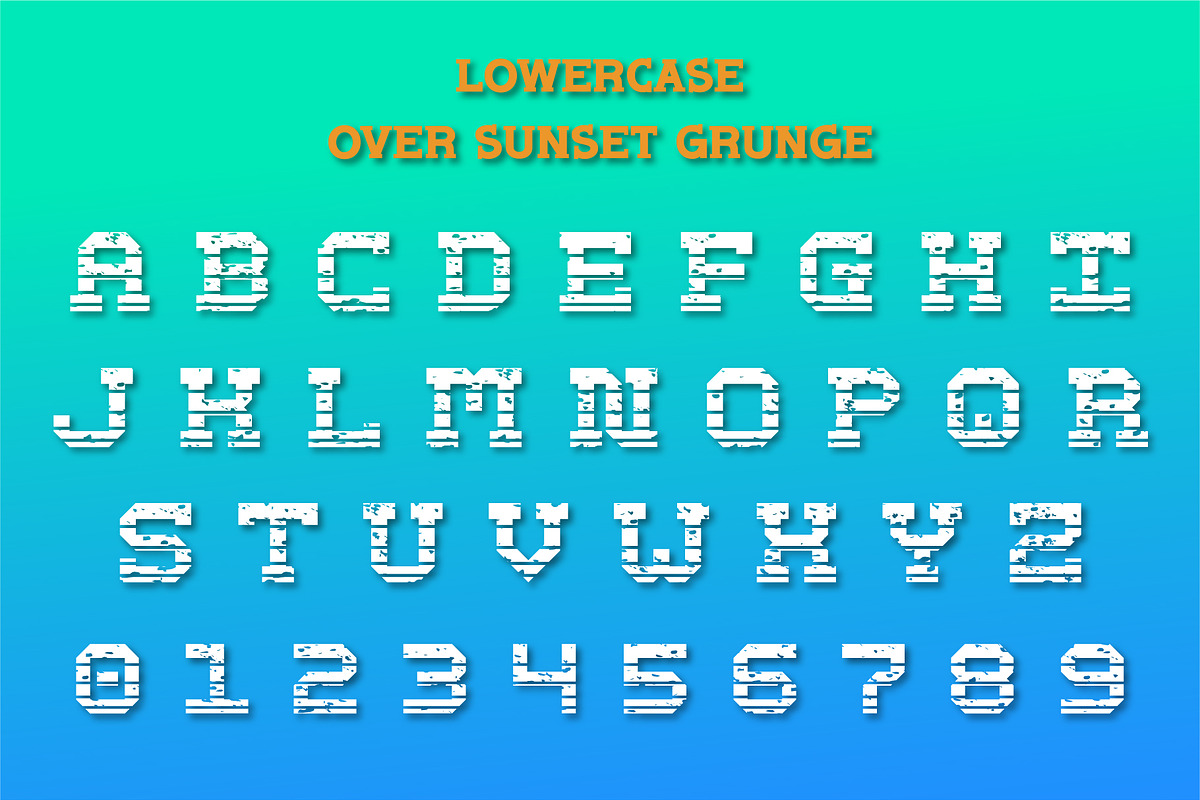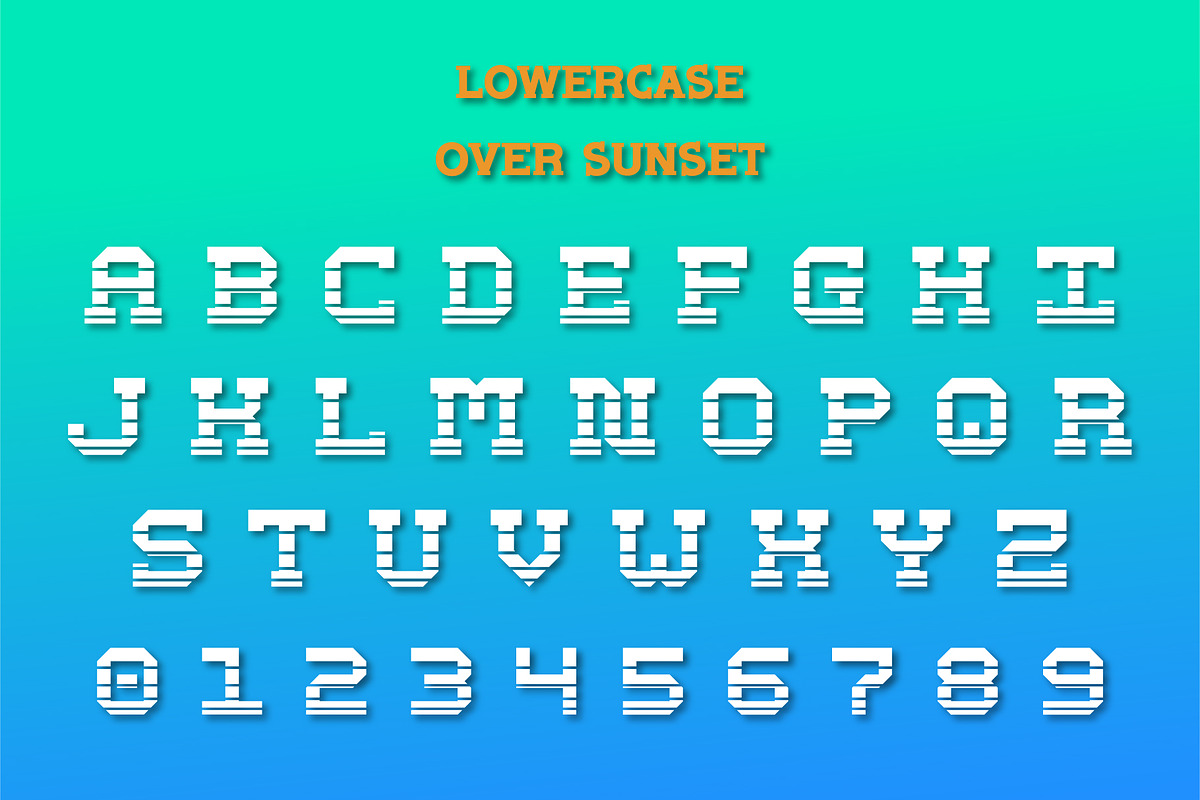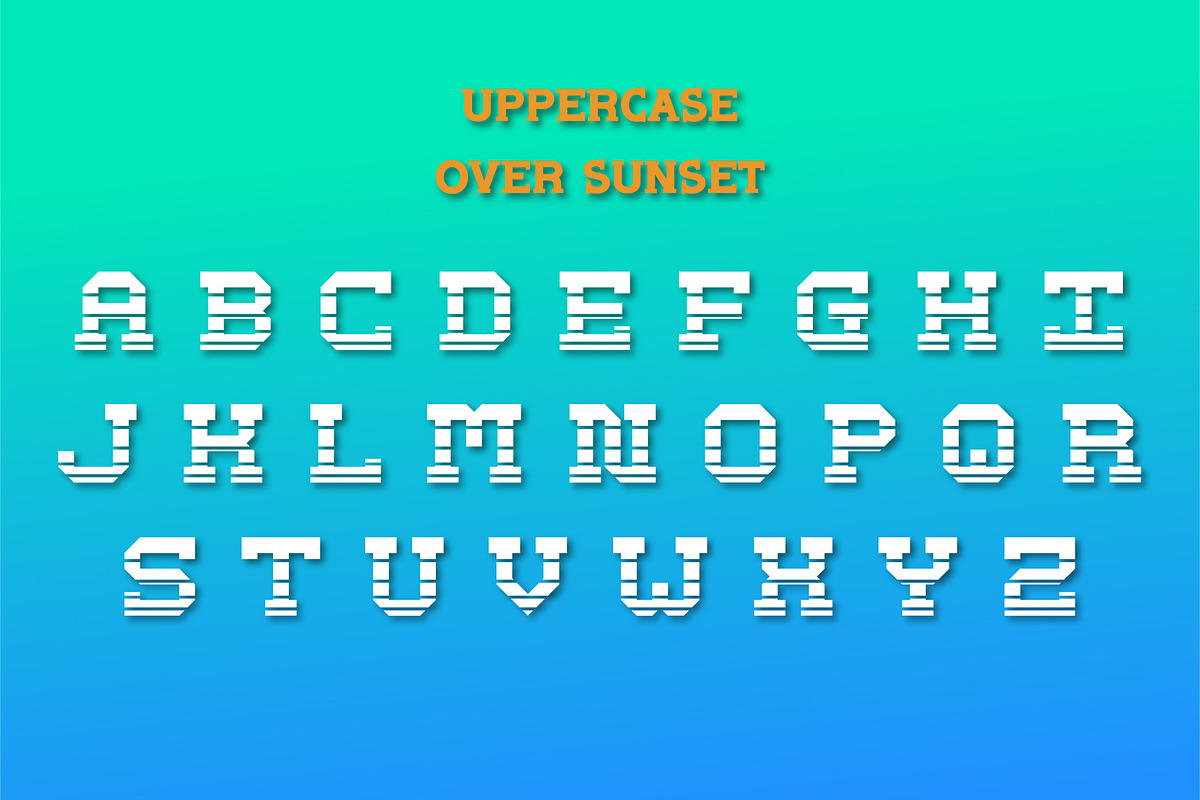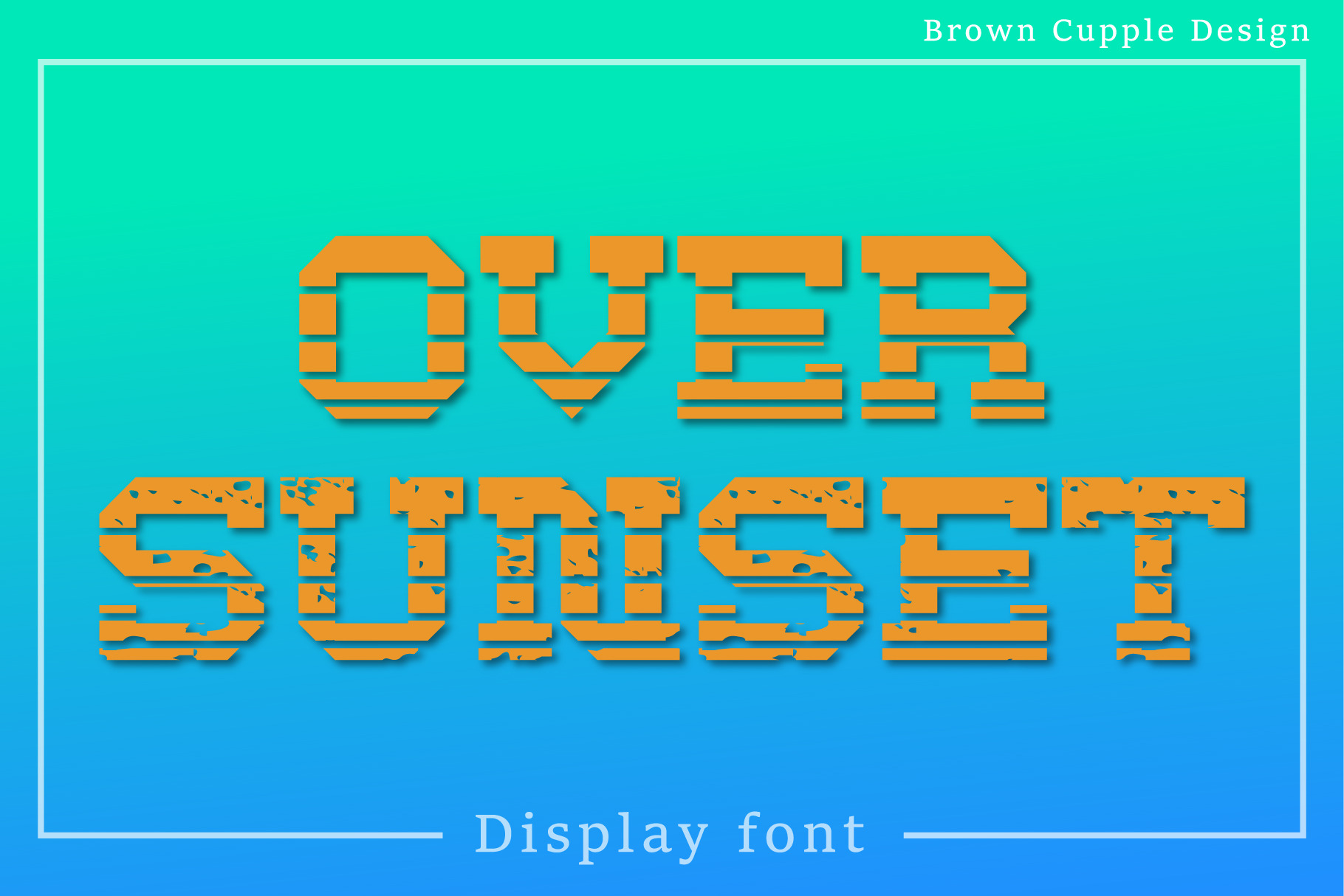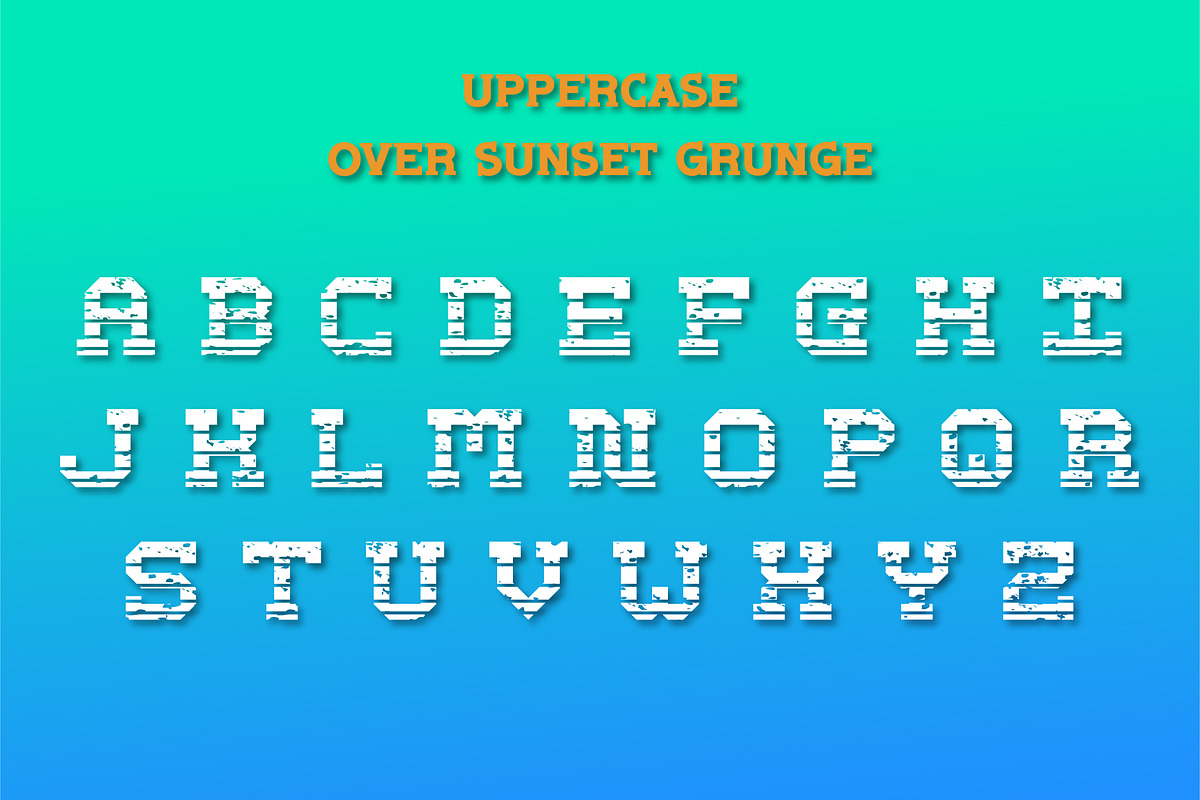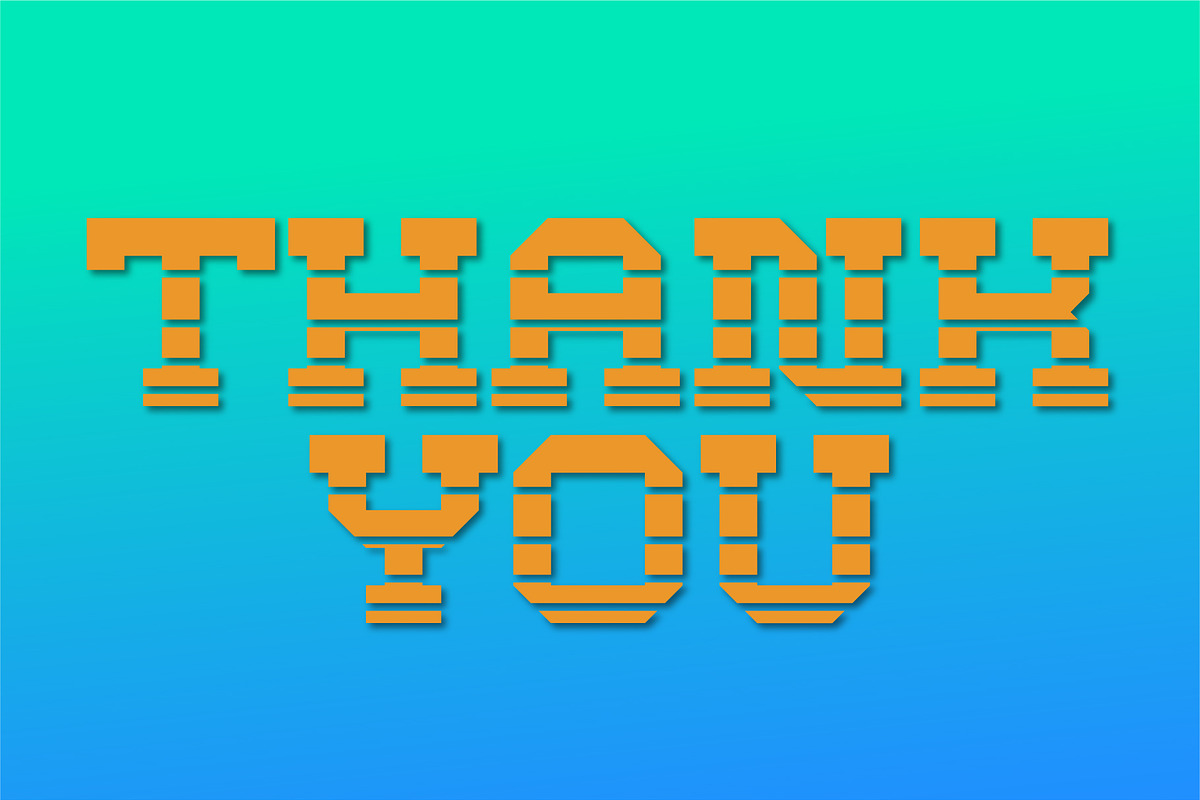
Over Sunset - Display Font
Over Sunset is a cool and retro styled display font. You can use it for various projects, such as blog posts, logos, branding, ads, invitations, greeting cards, planners, photo albums, decorations, and much more. Add it to any of your designs, and enjoy the results!